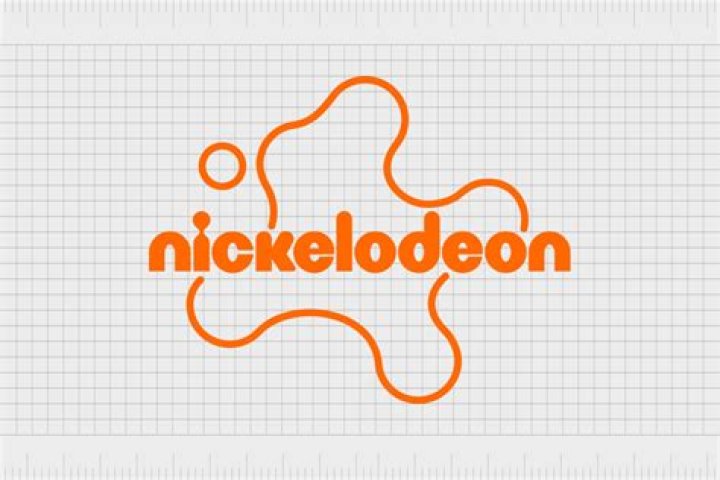
What font is the old Nickelodeon logo?
What Font Is Nickelodeon Using? Nickelodeon is a loyal fan of sans–serif fonts. This is clear from its maiden logo to the current one. For instance, its rainbow logo was crafted using a typeface known as Frankfurter.
What is the Nick font?
Nick’s Fonts is a modest little foundry dedicated to the preservation of our rich typographic heritage. Most of the foundry’s designs are based on authentic historical sources, gleaned from the massive collections of the Library of Congress.
What was the original Nickelodeon logo?
The network’s first logo showed a man in a bowler hat looking into a Nickelodeon machine. New York based creative director/designer, Joseph Iozzi, designed the first Nickelodeon logo. He also named the channel and created all the advertising.
What font does Nick Jr use?
Franxurter Totally Sans Serif Font – Nick Jr Font.
Why did Nick change the logo to blue?
Cyma Zarghami, president of all things Nick, has stated that the main reason for changing the logo, is to connect Nickelodeon, Nick at Nite, Nicktoons, Nick Jr. The splat must surely be one of the most recognizable logos out there, friend to both children, and time-poor parents, appearing in the top corner of the box.
Why did Nick logo turn blue?
Nickelodeon Turns BUGs Blue to Promote Launch of Paramount Plus. The blue Nickelodeon logos can be found across the Nick network: Nickelodeon, , TeenNick, Nicktoons, Nick Jr. Channel and NickMusic.
When did Nick change their logo?
February 2009
In February 2009, Nickelodeon unveiled an entirely new logo for the first time in 25 years.
What kind of font is the Nickelodeon logo?
The Nickelodeon logo has undergone several changes since its foundation in 1977. The current logo is a custom drawn logotype in orange. A font named Nickelodeon TV was created by Juan-e-b to imitate the letters in this logotype.
What kind of font is franxurter for dunkin’donuts?
Hello and I want to thank you for choosing Franxurter, my impression of Nick, Alan, and Bob’s Frankfurter! You may see the same old design in Dunkin’ products, Kuu Kuu Harajuku, True and the Rainbow Kingdom, bumpers in Nick Jr., most 80’s shows, and lots of others.
Is there a font generator for discord Nicks?
This page allows you to generate fonts for use in your nicks. Pages like Discord don’t allow you to change the default font, but using this generator you can avoid it so you can post more than bold and underlined text in your chat messages.
The Nickelodeon logo has undergone several changes since its foundation in 1977. The current logo is a custom drawn logotype in orange. A font named Nickelodeon TV was created by Juan-e-b to imitate the letters in this logotype.
If you are looking for a generator of rare letters to personalize your nick in any platform or game you have come to the right place. In letter converter you can write your nick to transform it into an original one created with rare letters, chidas, symbols and special letters. This page allows you to generate fonts for use in your nicks.
What was the logo of Nickelodeon in 1980?
In 1980, Nickelodeon slightly updated their logo, utilizing a typeface similar to the ITC Souvenir font. Their identification logos at the time featured a mime doing things on a black background with an instrumental cover of the song “Put That Little Nickel In” as background music. The font may be the same as Pinwheel’s logo and slightly modified.